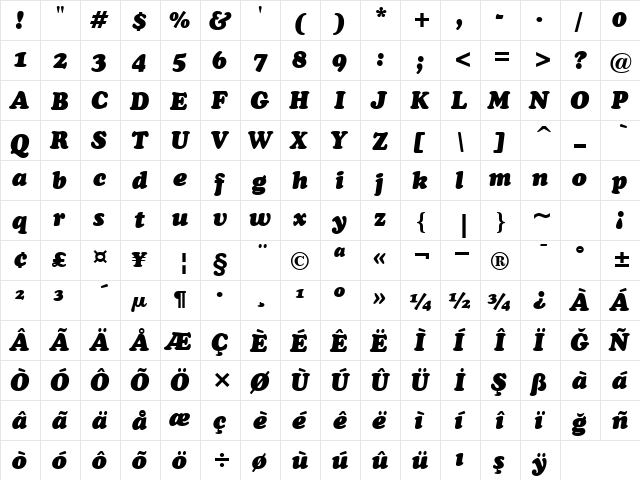
00850 Regular
Design Context for 00850 Typeface
00850 takes a measured approach to typography — its balanced proportions and neutral character make it a reliable workhorse for both digital and print work.